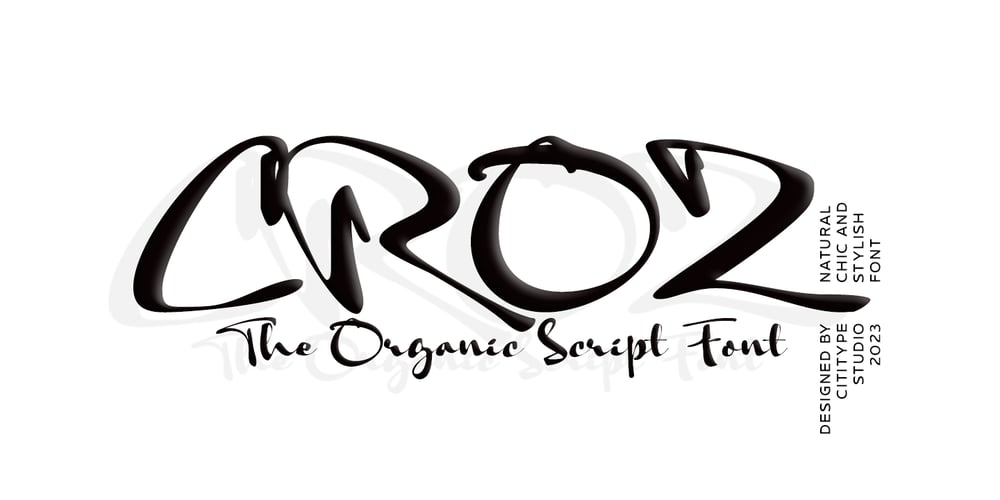
Croz
Croz font
Croz Font Family was designed by Muhammad Ridha Agusni, Siti Saribanon Nurjannah and published by Cititype. Croz contains 1 styles and family package options. Croz Script is a raw and organic script typeface. Its cool appereance is carefully handcrafted to straight away grab the attention of the viewers. the shapes give this font a modern, chic, fun, funky vibe.Suitable if use for logos, posters, craft project, portfolio, headlines, brandings, apparel, etc.